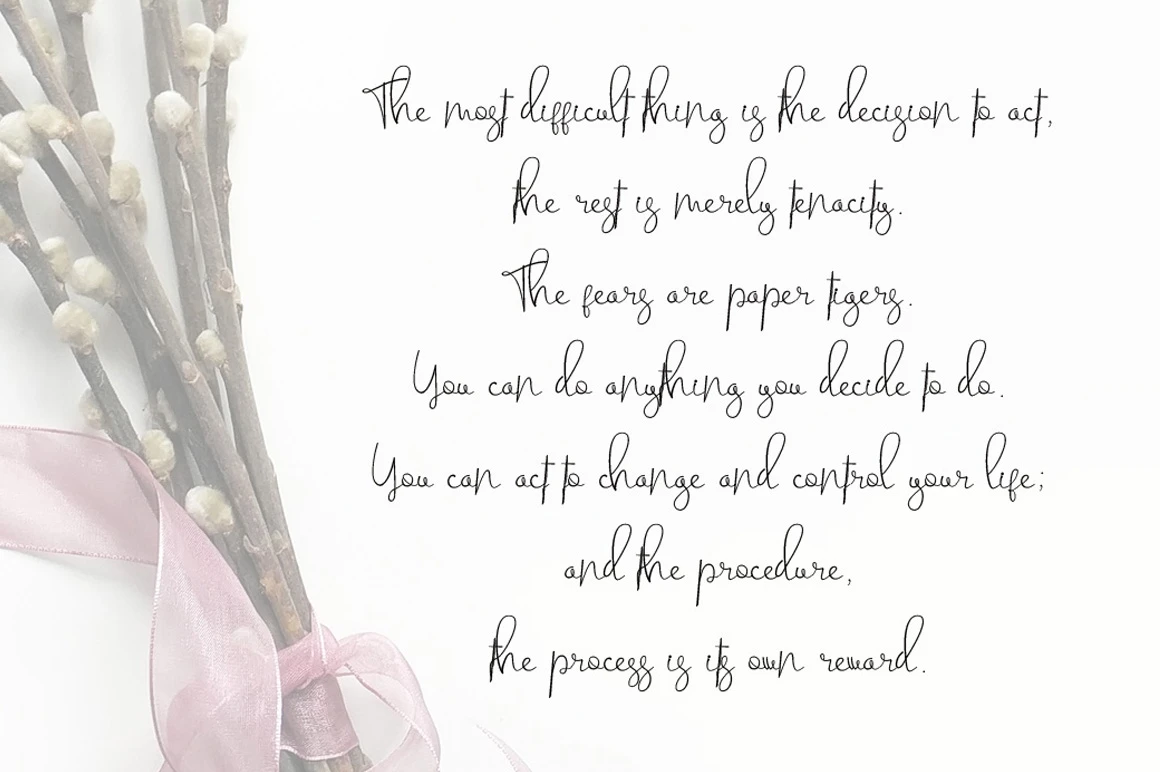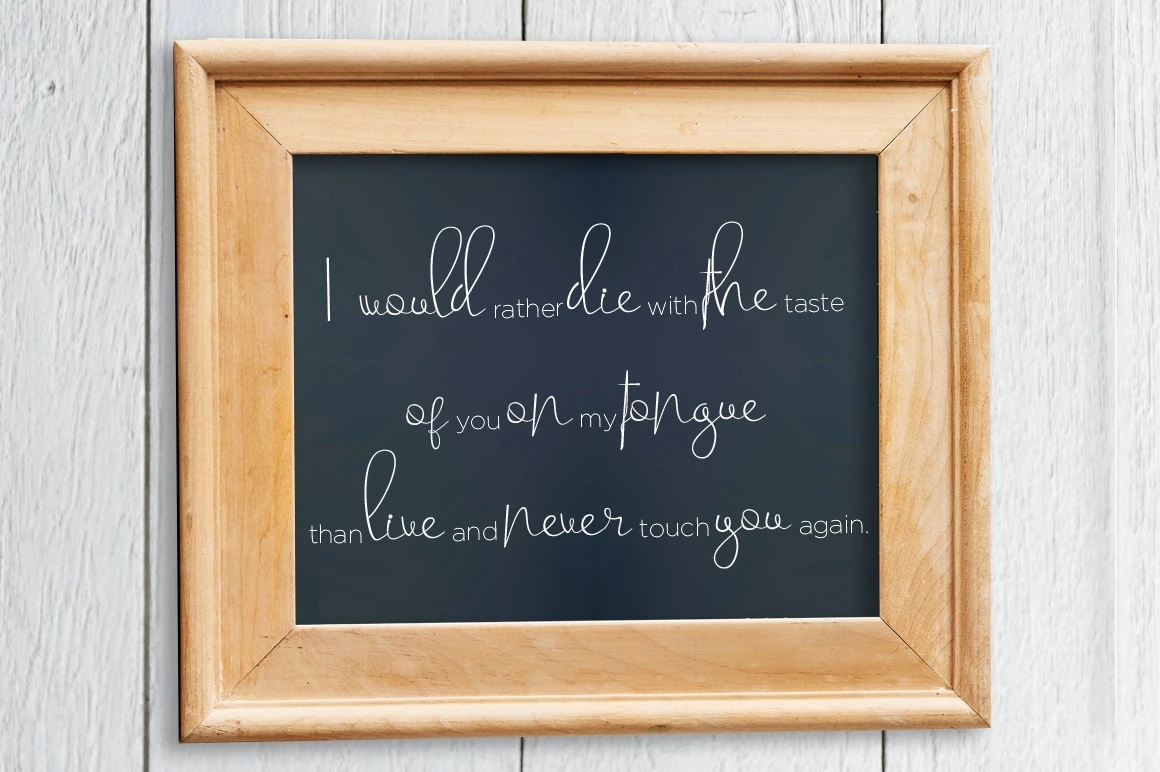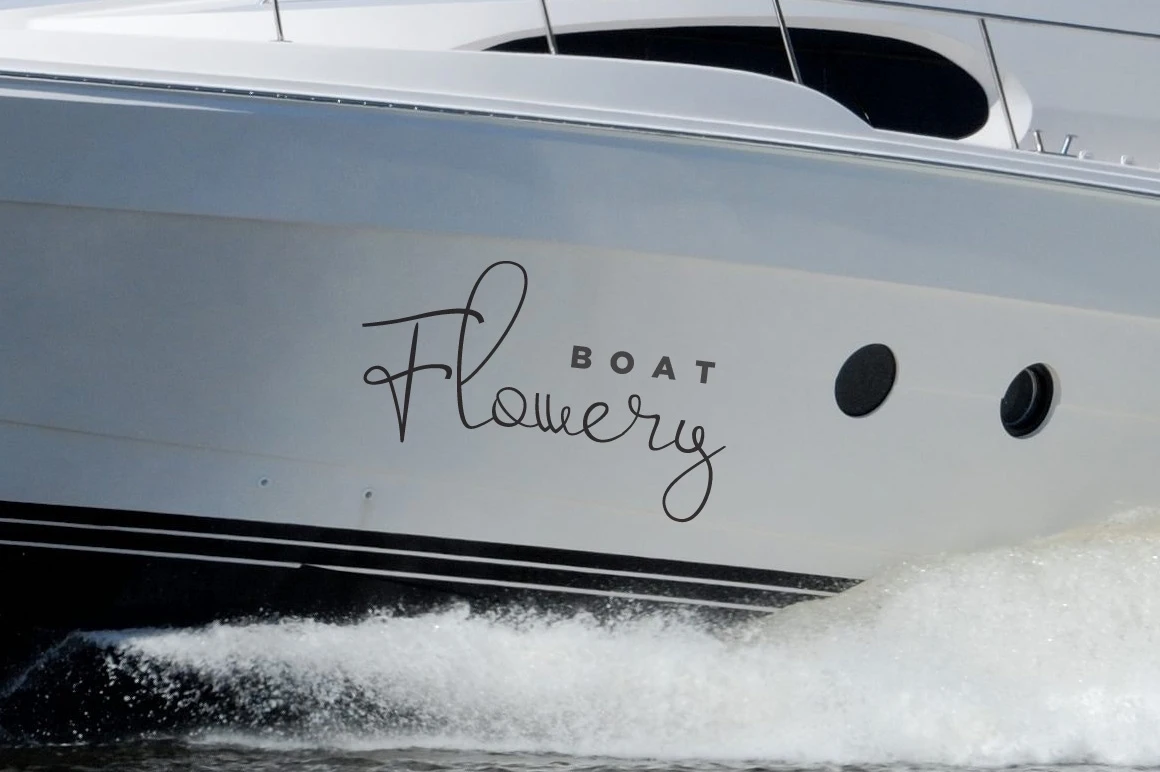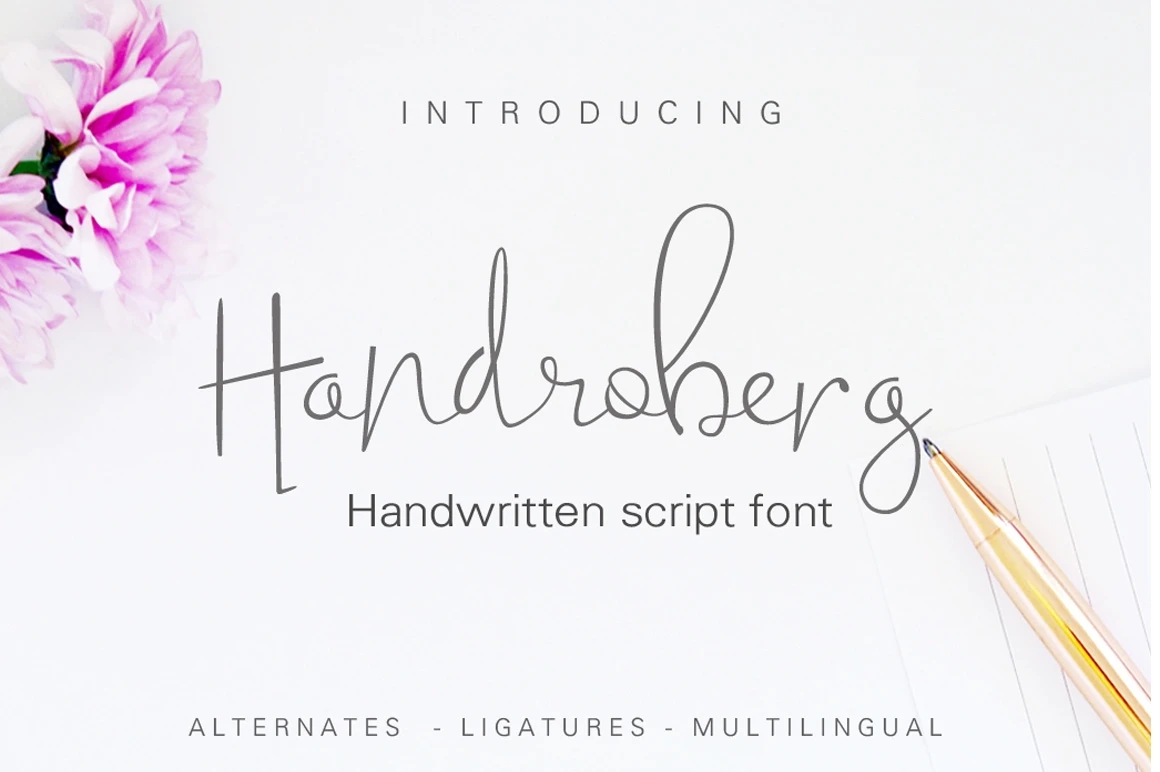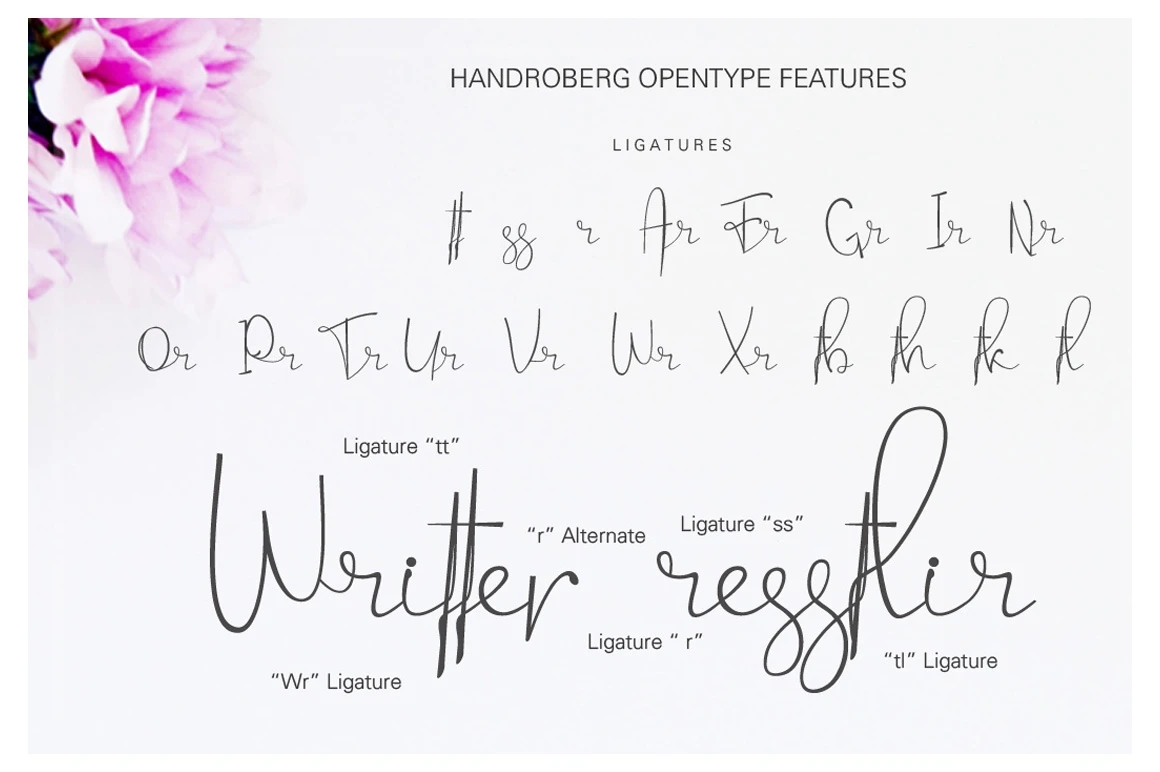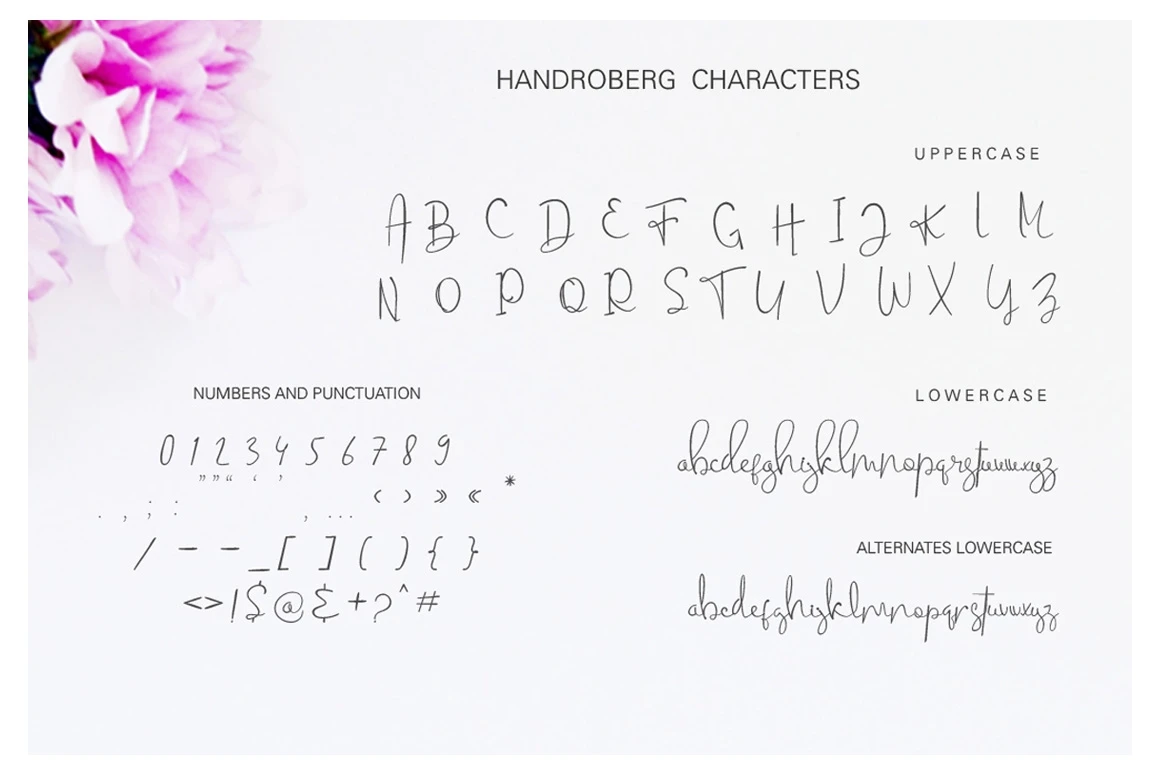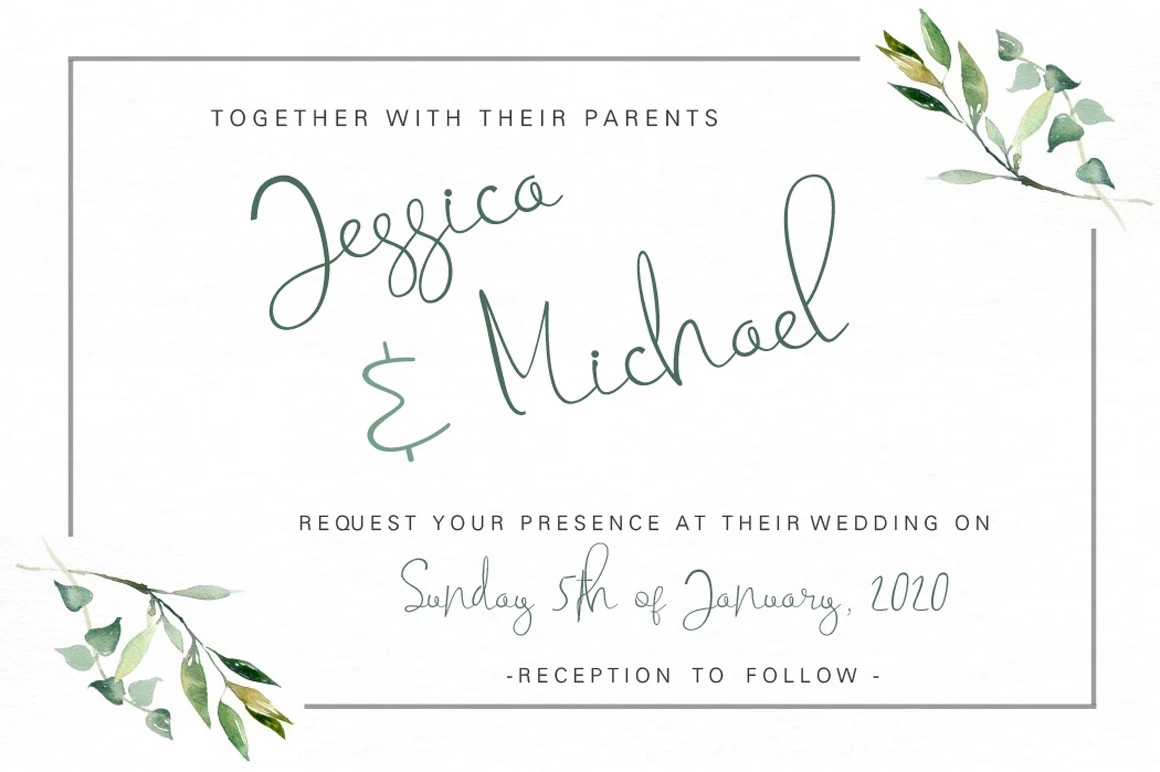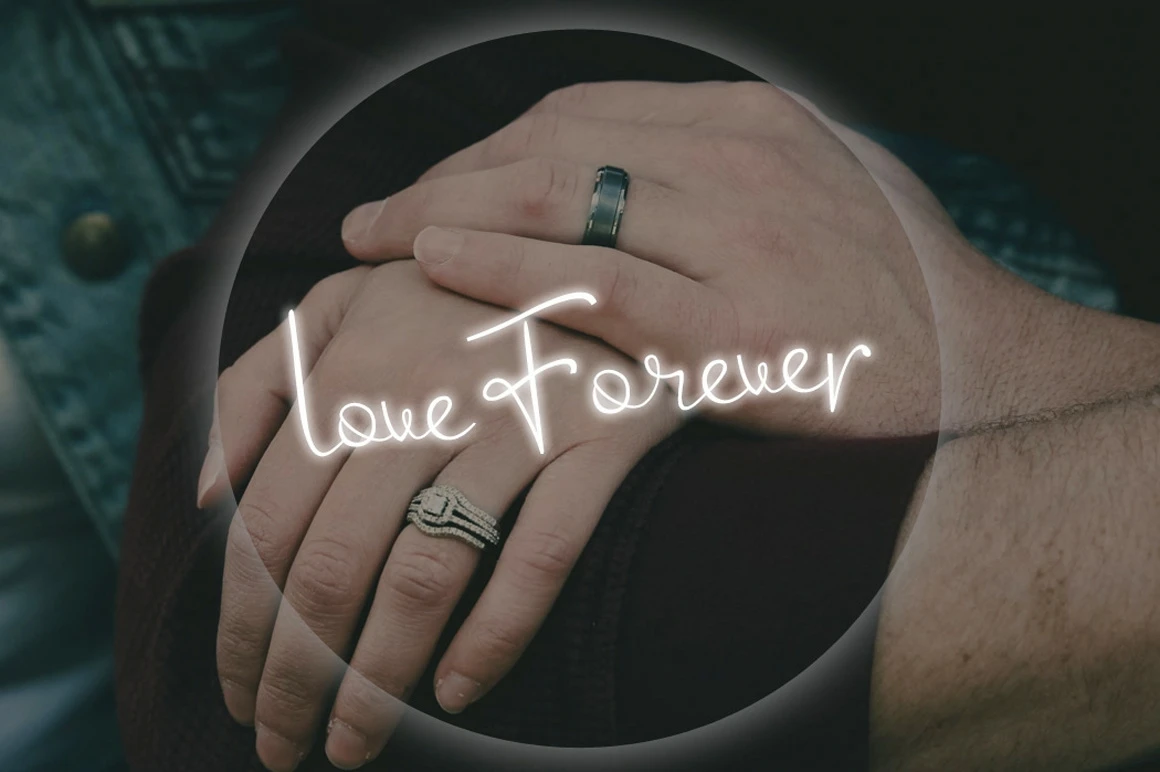
Handroberg is a nice handwritten script font.Its variety of alternates and ligatures provide a range of choices that will help you find the best typographic color for your project.
Suitable for wedding invitation, any greeting cards, quotes, headers, or any design that needs natural and personal touch.
Features :
- Uppercase A-Z
- Lowercase a-z
- Numbers 0-9
- Punctuation
- Custom Ligatures
- lowercase alternates
- Multilingual support